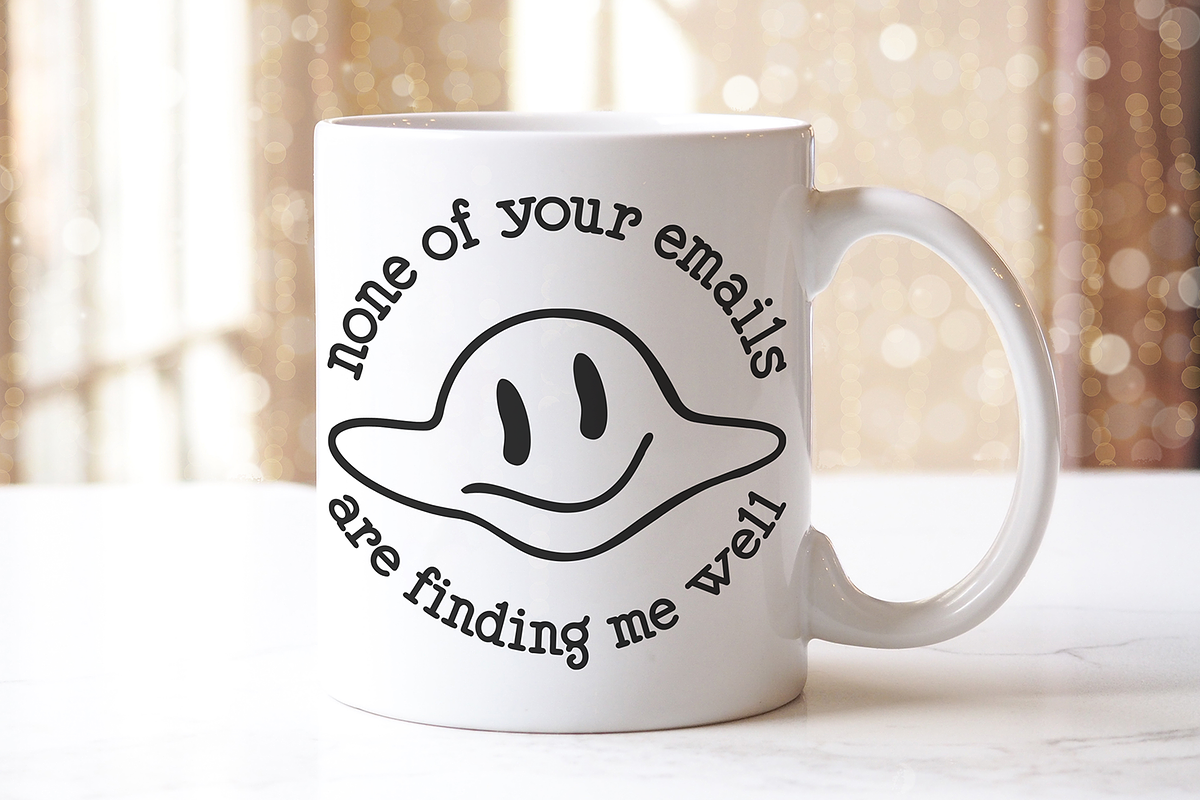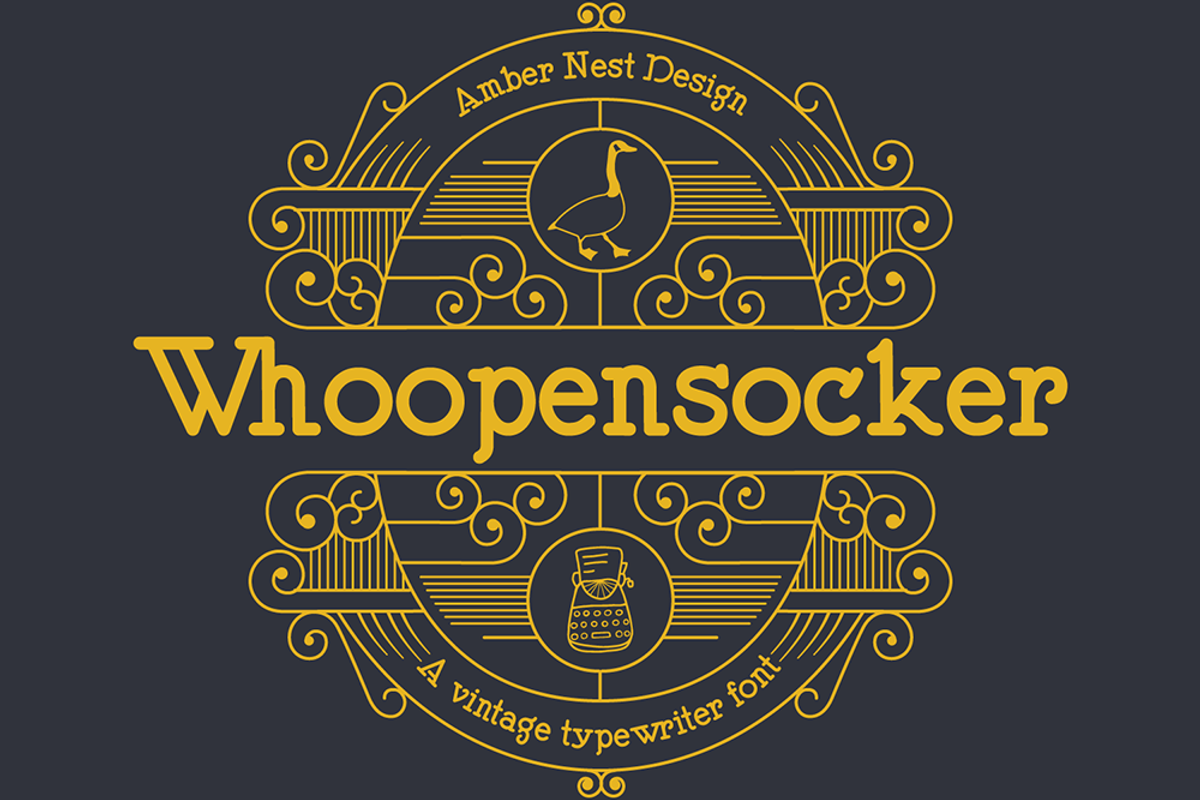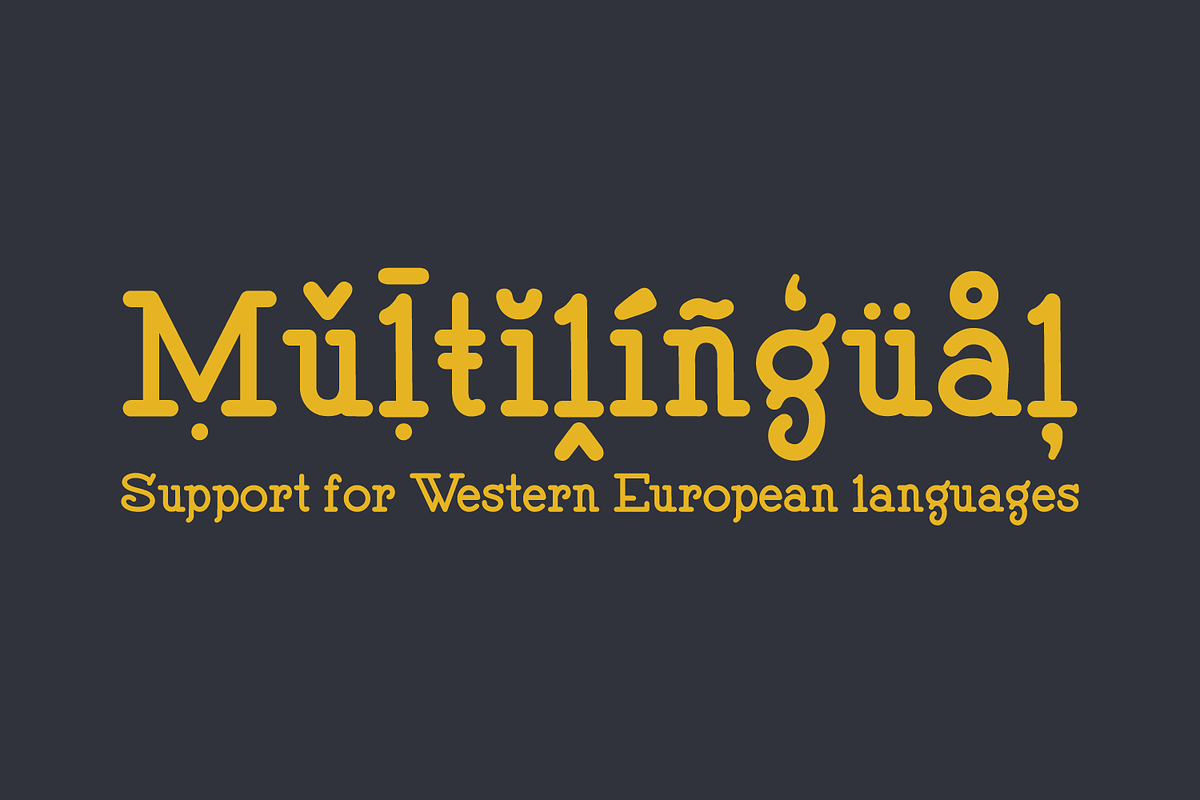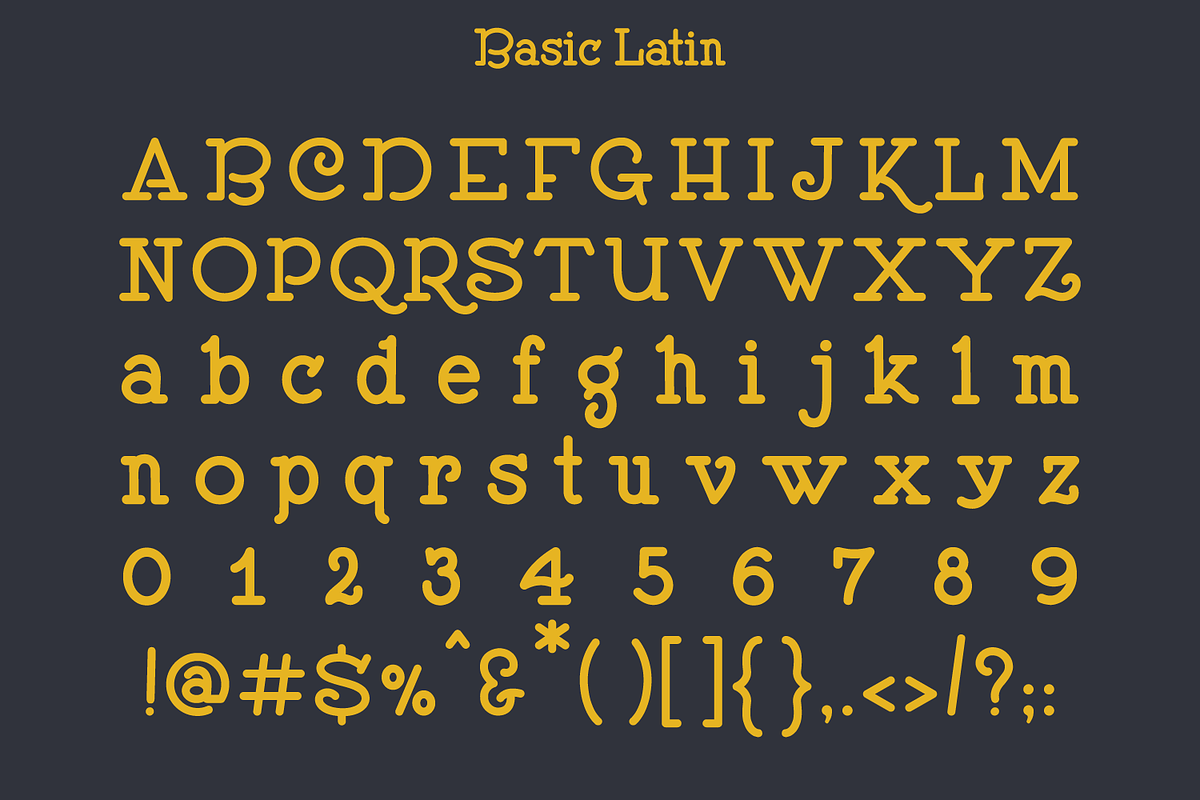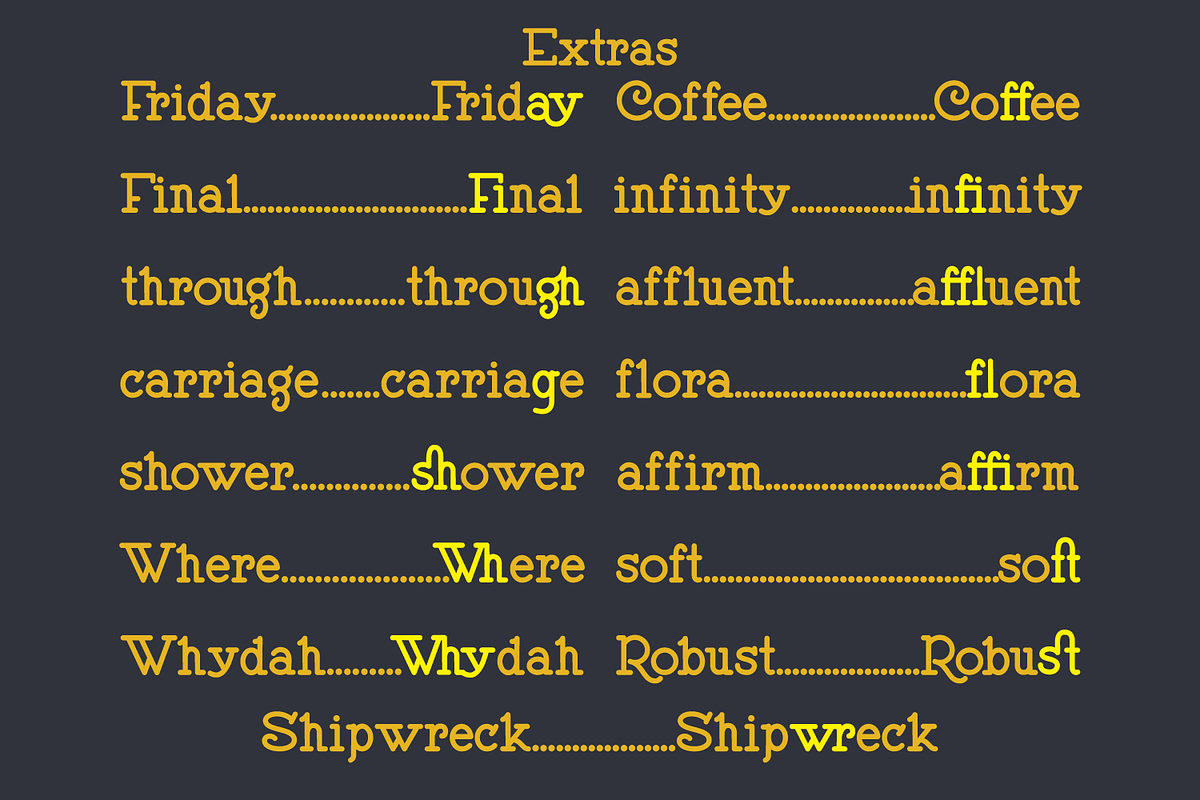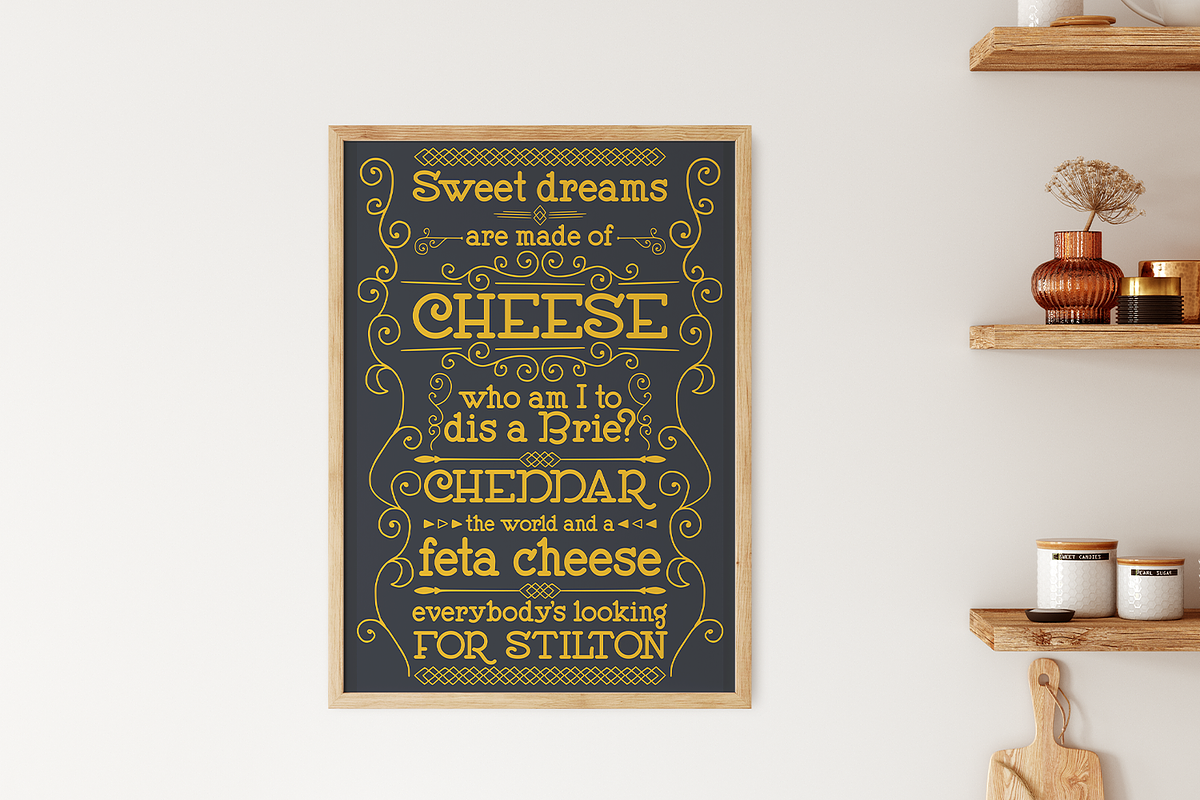
Whoopensocker - typewriter font
Meet Whoopensocker, a vintage typewriter font!
This font is perfect for branding or t-shirts. Try it in a logo or use it in sublimation design with a texture or pattern overlay. With a total of 751 glyphs, it's a really fun font that I know you'll have a lot of fun using!
This font includes support for most Western European languages with full Basic Latin, Latin 1 supplement, and Latin extended A sets, as well as partial Latin extended B and combining diacritical marks.
Also included are standard ligatures, stylistic alts, and discretionary ligatures.